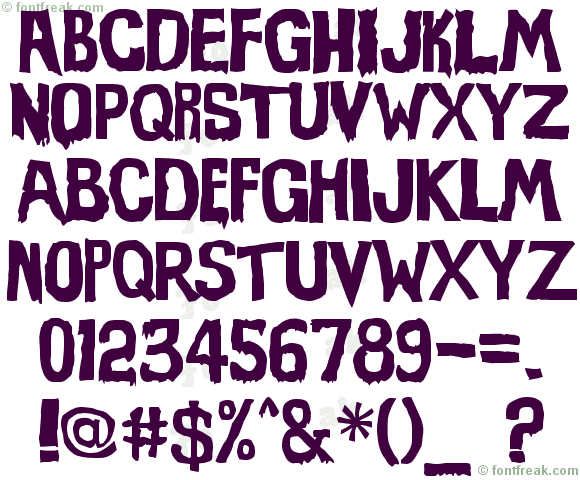
Evil Of Frankenstein
The Evil Of Frankenstein font, created by Brain Eaters Font Co., is a striking display typeface that embodies a playful yet sinister aesthetic. This decorative font features uneven, jagged edges that evoke a sense of horror and whimsy, reminiscent of classic monster movies. Its bold stroke weight adds a dramatic flair, while the lack of consistent contrast in the letterforms contributes to its unique, chaotic appearance. The spacing between characters is tight, enhancing the font's striking presence, making it ideal for attention-grabbing designs.
This font excels in various creative contexts, particularly in Halloween-themed promotions, movie posters for horror films, and graphic novels. Its dramatic style also makes it a fitting choice for merchandise related to spooky events or haunted attractions. Additionally, designers may find the Evil Of Frankenstein font to be a captivating option for T-shirt graphics and social media campaigns aimed at an audience with a taste for the macabre. Small business owners who operate in the entertainment or novelty sectors could also utilize this font to create eye-catching branding materials.
Targeting graphic designers, content creators, and small business owners, this font offers a distinctive voice that stands out in a crowded marketplace. The unique design elements lend themselves well to projects that seek to convey a sense of fun and fright simultaneously.